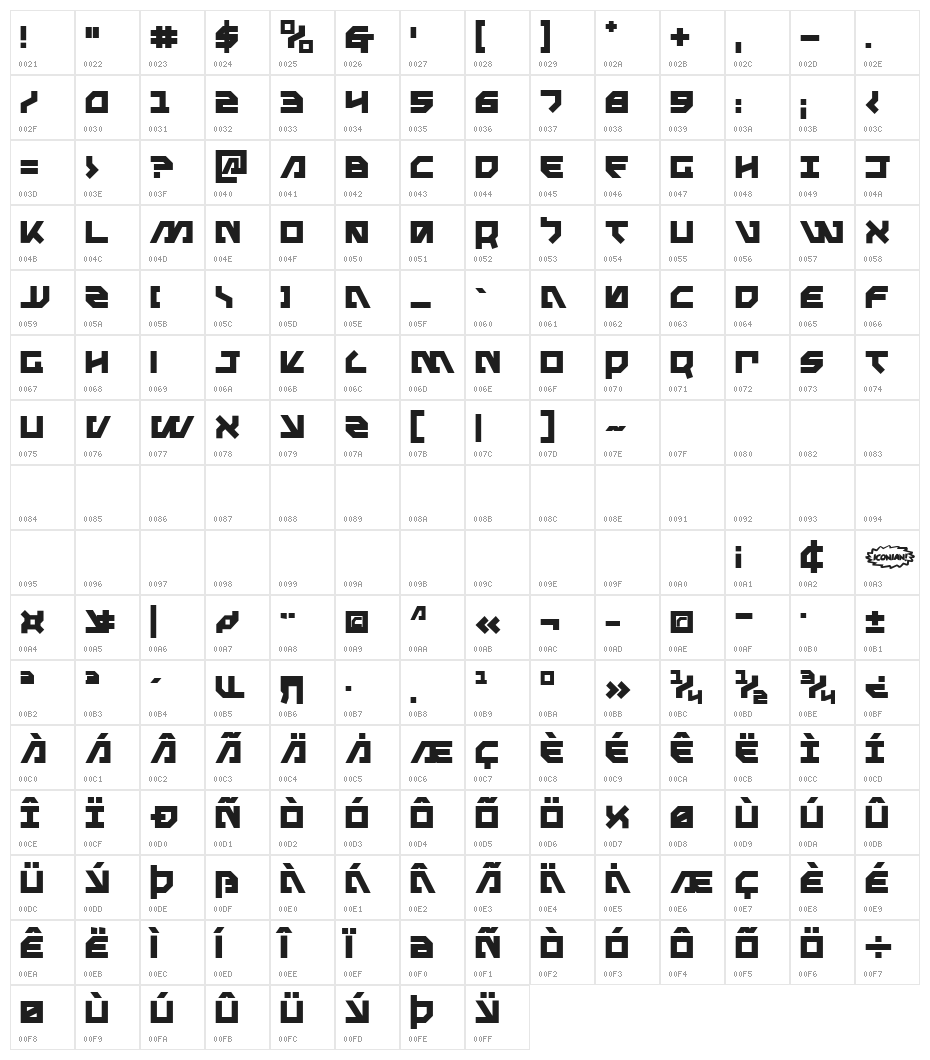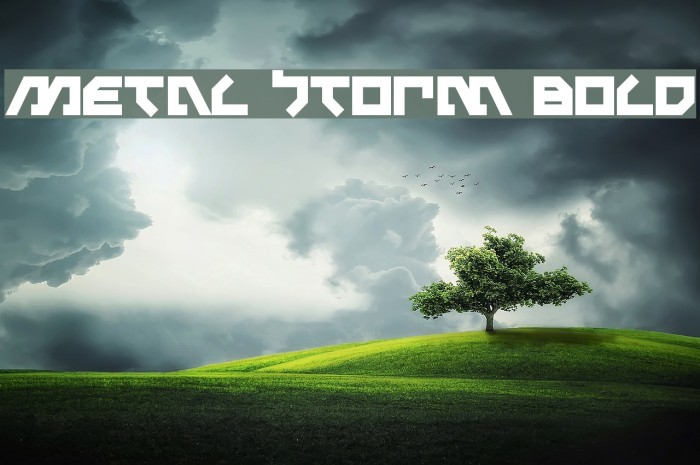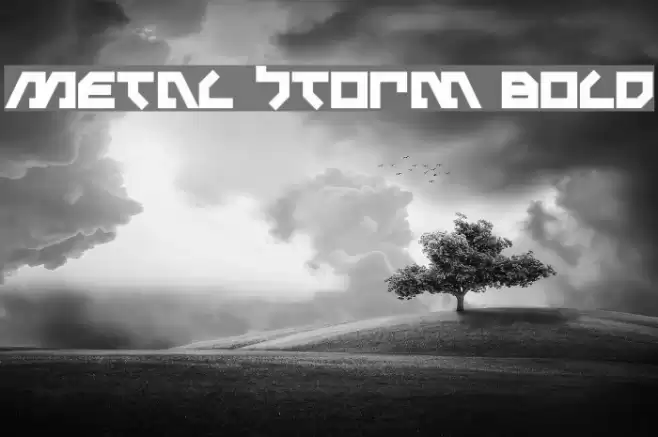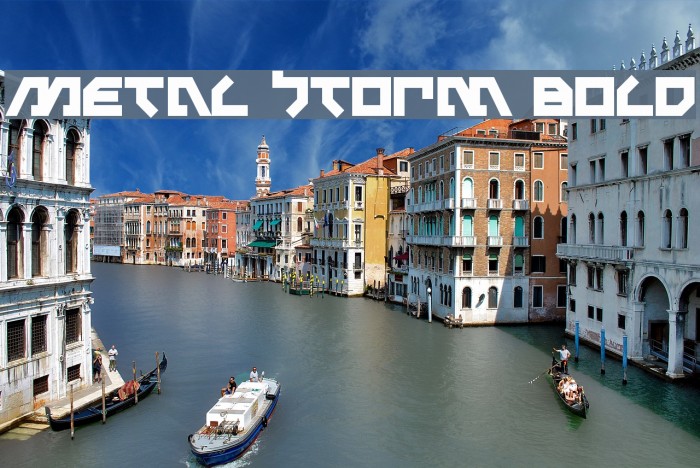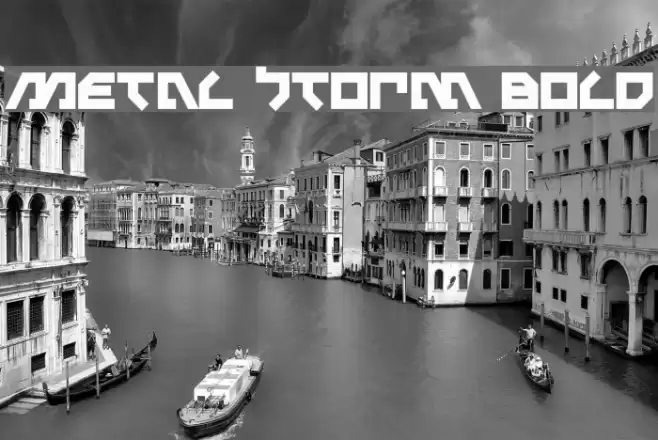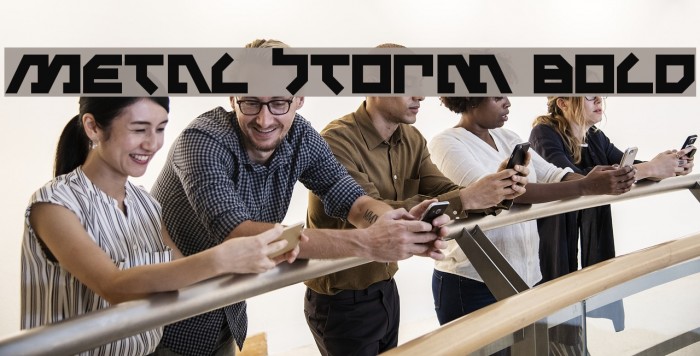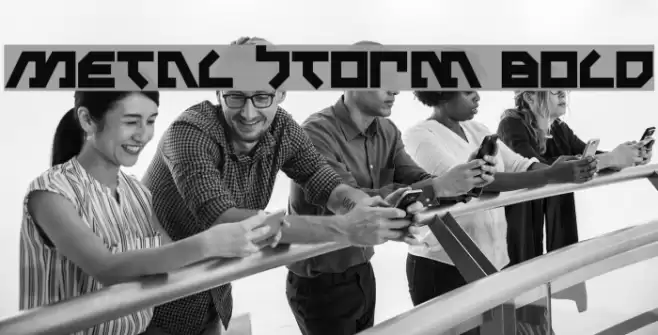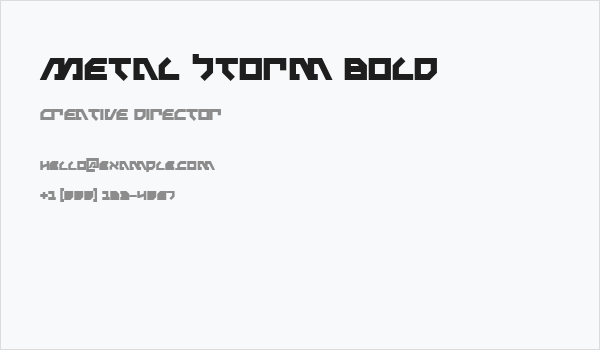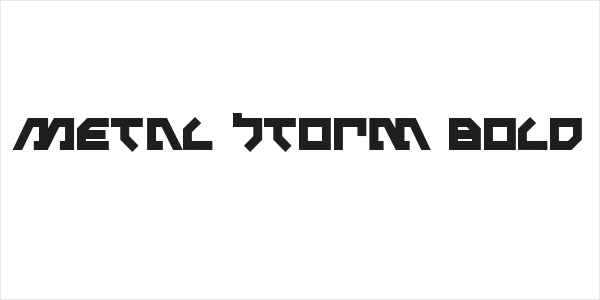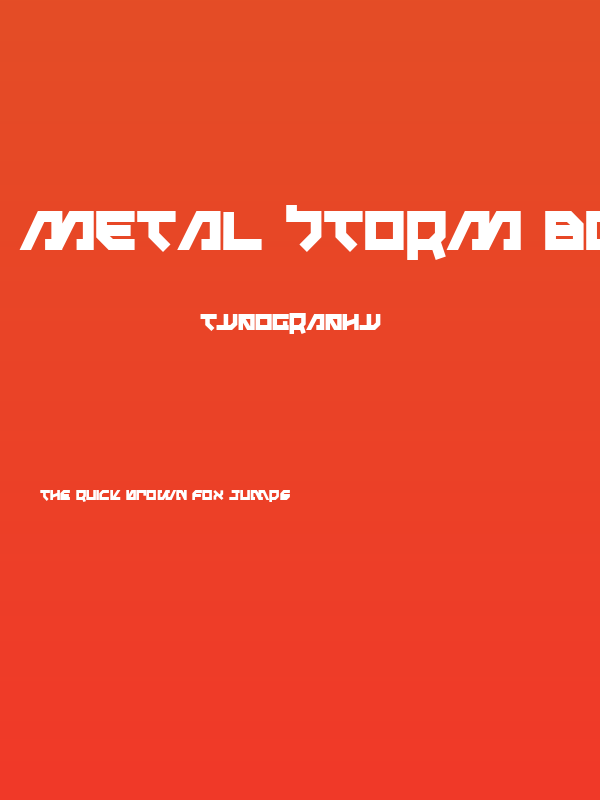
Metal Storm Bold Font
Metal Storm Bold Description
This font exhibits a bold, angular design with a distinctly futuristic and industrial aesthetic. The characters are constructed with sharp, geometric edges and a uniform thickness, creating a strong and impactful visual presence. The uppercase and lowercase letters maintain a consistent style, with the lowercase mirroring the uppercase in form. Numbers and special characters are equally bold and angular, ensuring a cohesive look across all text elements. The font's design suggests a sense of strength and modernity, making it suitable for projects that require a bold statement.
| Proposed Projects | Ideal for use in technology branding, video game titles, sci-fi movie posters, and industrial-themed designs. |